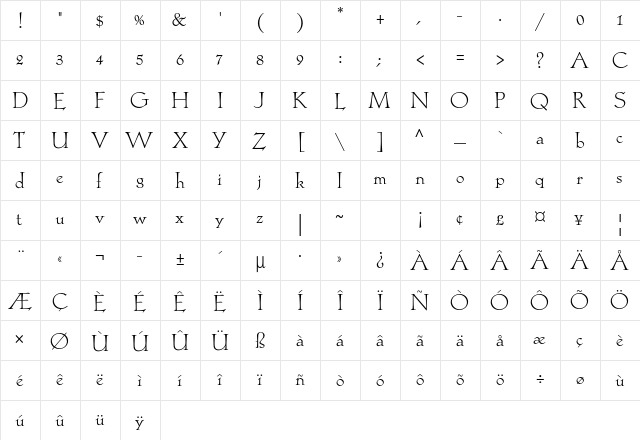
Locarno Std Light
Light ·  Alan Meeks ·
Design Context for Locarno Std Typeface
Locarno Std is a composed and adaptable typeface that performs quietly and consistently across a wide range of design contexts. The delicate stroke weight brings airiness and refinement to layouts.